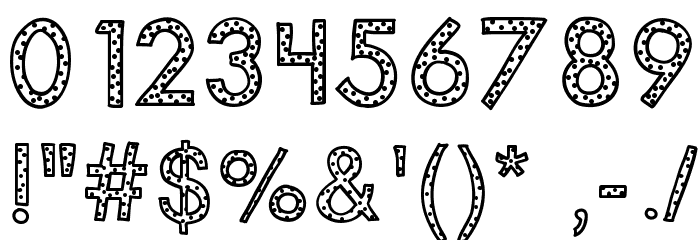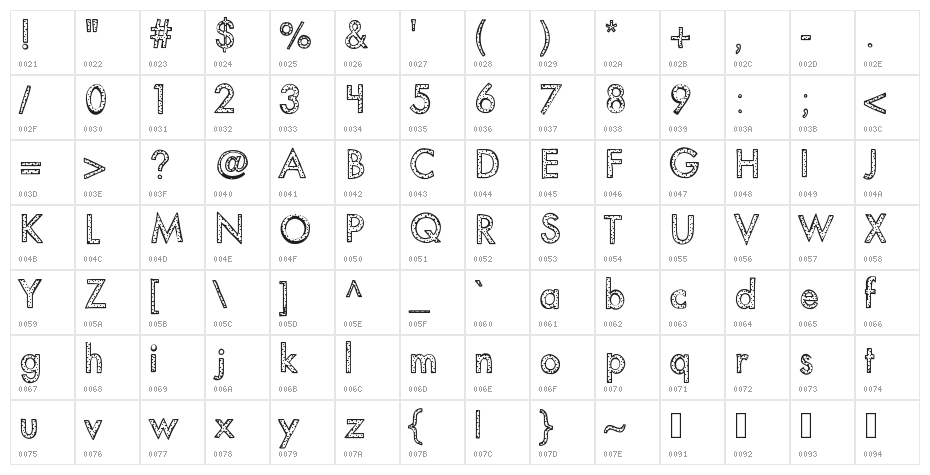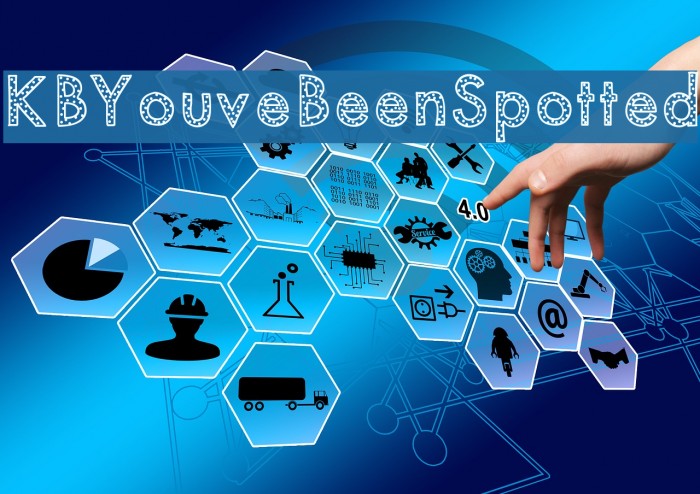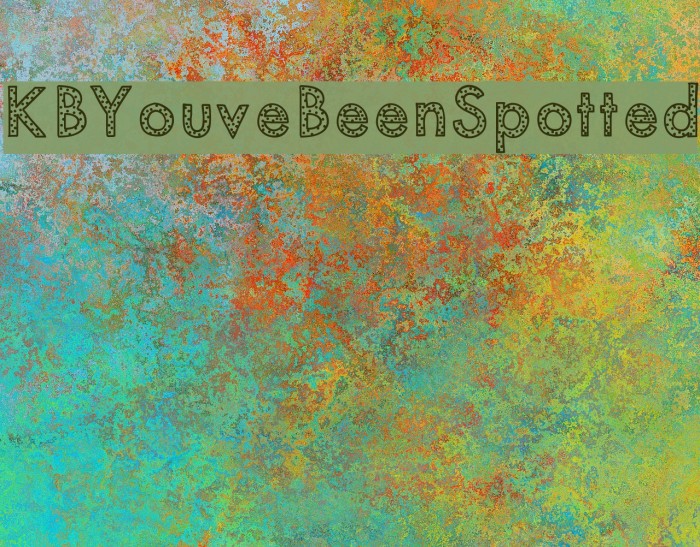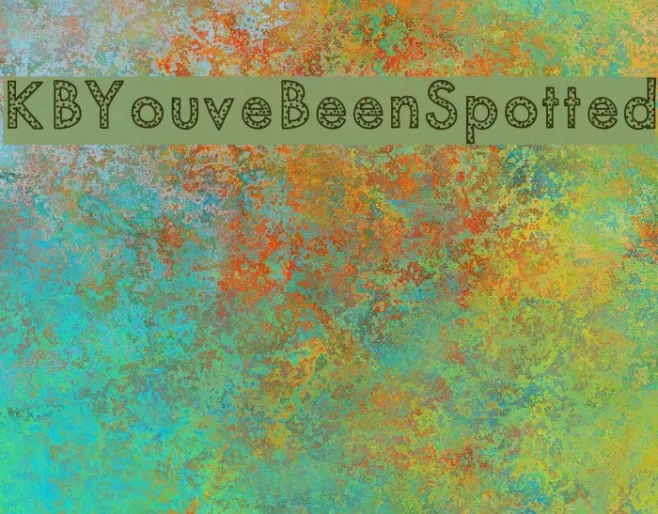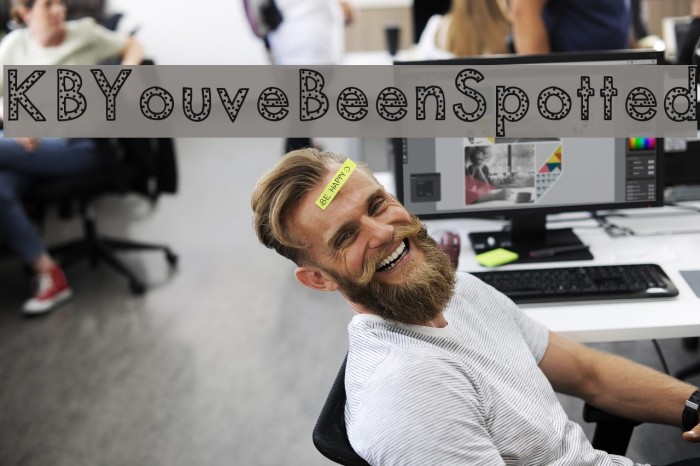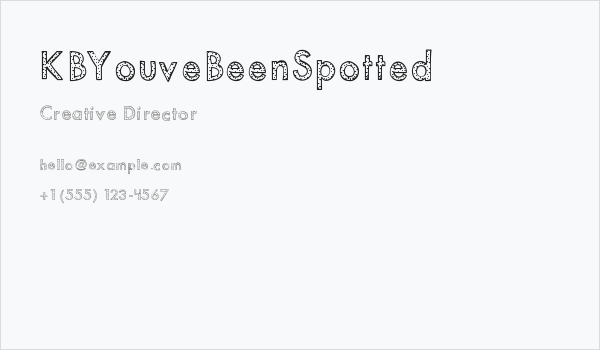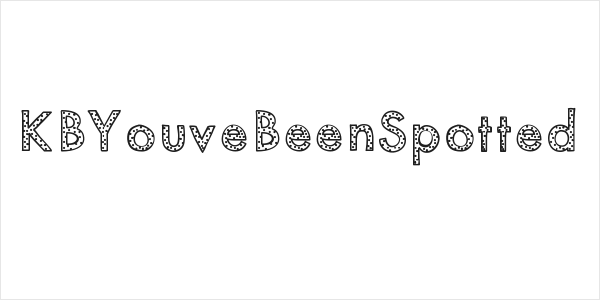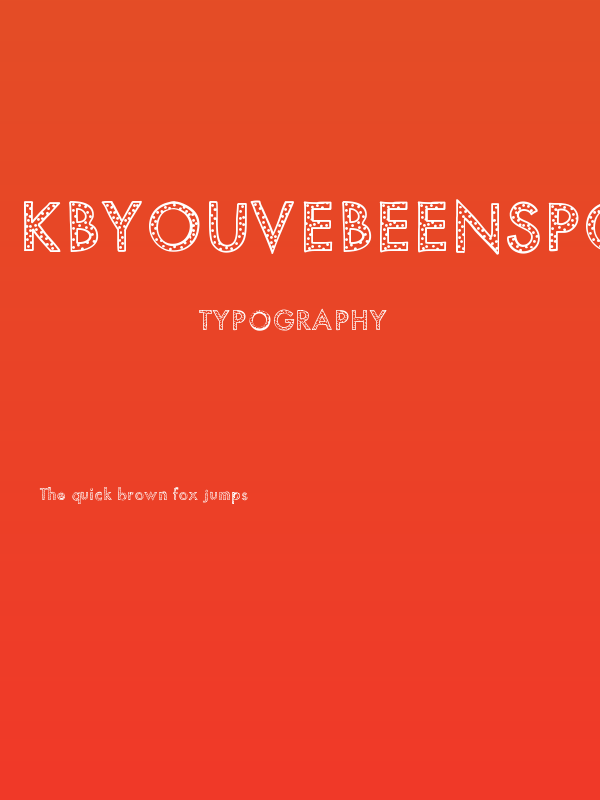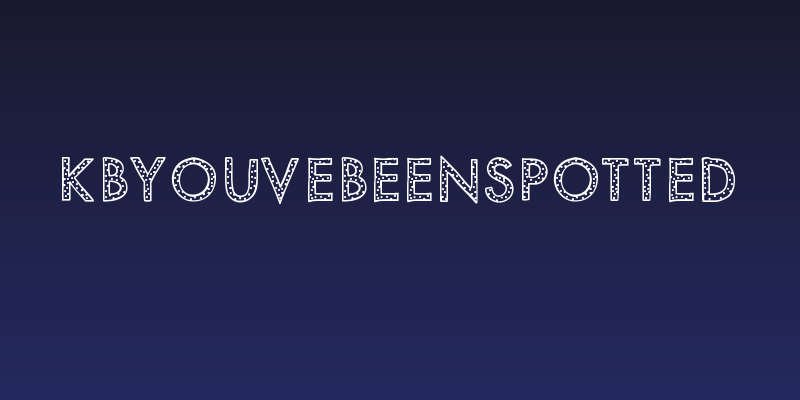
KBYouveBeenSpotted Font
KBYouveBeenSpotted Description
This playful and decorative font features bold, uppercase and lowercase letters with a unique dotted pattern filling each character. The design is eye-catching and whimsical, making it ideal for creative projects. The numbers and special characters maintain the same dotted style, ensuring consistency across all glyphs. The font's boldness and decorative elements make it stand out, while the spacing between characters is normal, allowing for readability despite its intricate design. The overall style is modern and fun, perfect for projects that require a touch of creativity and flair.